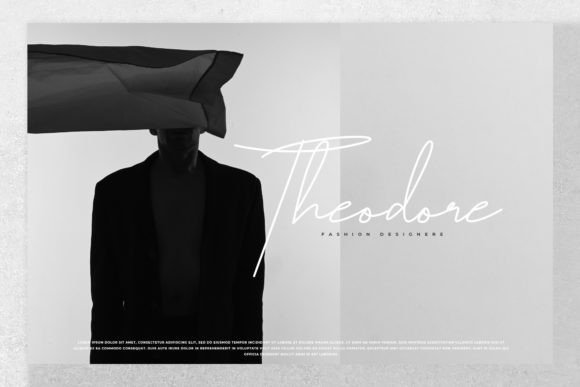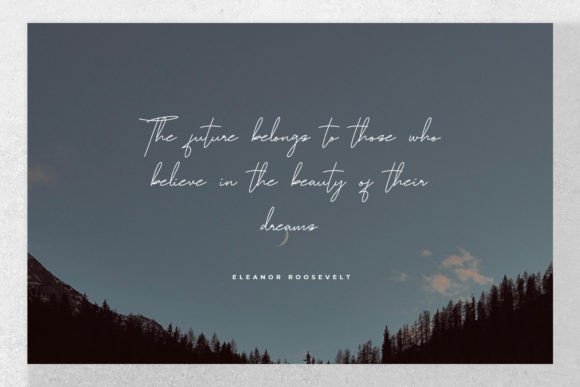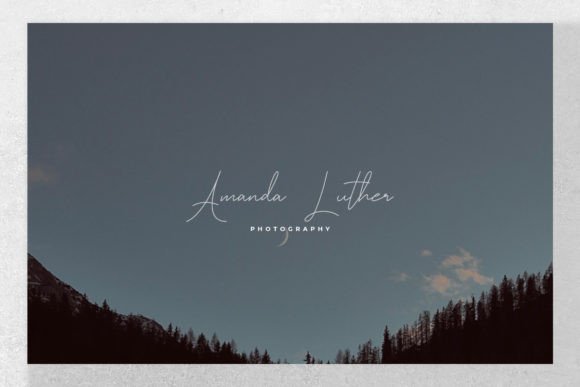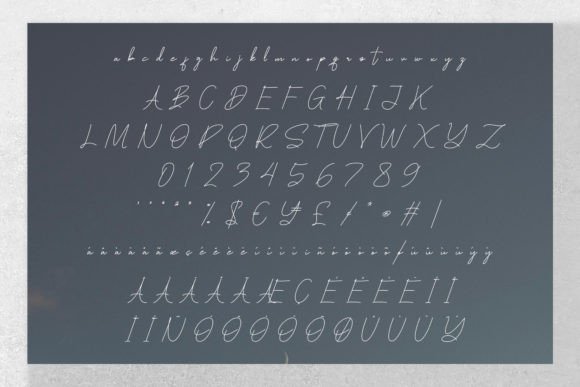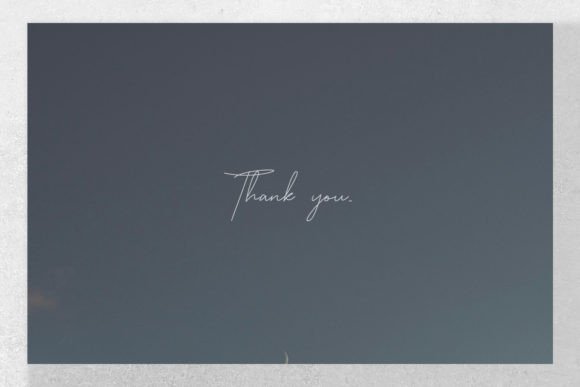
Bomentiny Font: Elevate Your Creativity with Elegance
In the realm of typography, few fonts manage to capture the essence of elegance and whimsy as effectively as Bomentiny. This magical script font, carefully crafted with a touch of sophistication, has emerged as a versatile tool for creatives. Whether you’re a designer looking to enhance your Instagram feed or a crafter seeking the perfect calligraphy script for your DIY projects, Bomentiny is poised to transform your ideas into true pieces of art.
The Charm of Bomentiny
Bomentiny’s charm lies in its unique blend of classic script elements with a modern, magical twist. Its elegant strokes and fluid connections evoke a sense of nostalgia, reminiscent of handwritten calligraphy. Yet, its adaptability and range make it suitable for a wide array of applications, from digital media to handmade crafts.
Versatility for Designers
For designers, particularly those focusing on social media aesthetics, Bomentiny offers a wealth of possibilities. Its distinctive style can instantly elevate your Instagram posts, stories, and bio, giving your profile a cohesive and sophisticated look. Moreover, its compatibility with various design tools ensures seamless integration into your workflow.
- Branding: Use Bomentiny to create a unique visual identity for your brand, setting you apart from the competition.
- Web Design: Enhance your website’s typography, making it more engaging and user-friendly.
- Print Design: From brochures to business cards, Bomentiny can add a touch of elegance to your print materials.
A Crafter’s Companion
Crafters and DIY enthusiasts will find Bomentiny to be an invaluable resource. Its calligraphy script style is perfect for a variety of projects, including:
- Handmade Cards: Add a personal touch to your greeting cards with Bomentiny’s elegant script.
- DIY Decor: Use Bomentiny to create beautiful wall art, signs, and other decorative items.
- Journaling: Elevate your journal or diary with Bomentiny, making it a unique and personalized keepsake.
Why Choose Bomentiny?
Choosing Bomentiny for your creative projects comes with several advantages:
- Ease of Use: Bomentiny is designed to be user-friendly, making it accessible even for those with limited design experience.
- High Versatility: Its range of applications, from digital to physical, makes it a highly versatile font.
- Unique Aesthetic: Bomentiny’s distinctive style ensures your projects stand out, capturing the attention of your audience.
Tips for Using Bomentiny
To maximize the potential of Bomentiny, consider the following tips:
- Experiment with Sizes: Bomentiny’s elegance shines at various sizes, so don’t be afraid to experiment to find the perfect fit for your project.
- Combine with Other Fonts: Pair Bomentiny with complementary fonts to create visually appealing contrasts.
- Play with Colors: While Bomentiny’s beauty is evident in black and white, exploring different colors can add another layer of depth to your designs.
Bomentiny is more than just a font; it’s a creative tool that bridges the gap between imagination and reality. Its magical script, infused with elegance, offers endless possibilities for designers and crafters alike. Whether you’re looking to enhance your digital presence or craft something beautiful by hand, Bomentiny is your perfect companion. Embrace the magic of Bomentiny and watch your creative ideas flourish into true pieces of art.